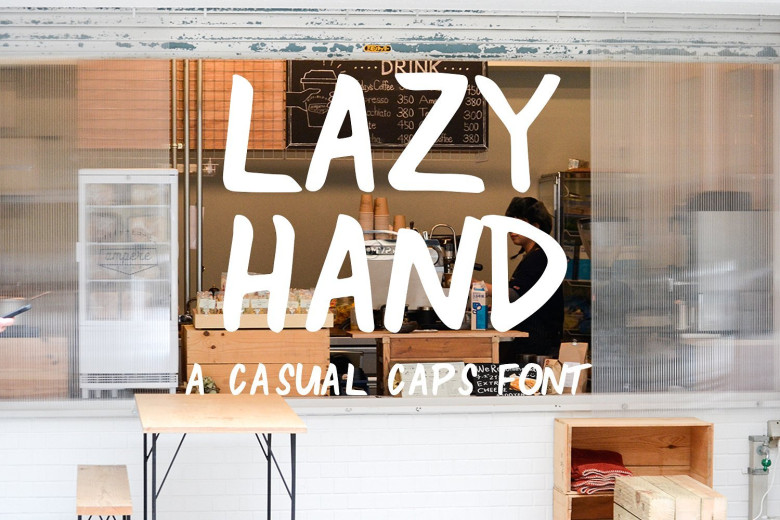
Lazy Hand Font
Introducing Lazy Hand Font! Lazy Hand designed by Jenna Maxfield, this is a premium font, are sold on creativemarket, but it was great, it is free today for download. Lazy Hand is a casual, all caps font with endless possibilities. With a relaxed handwritten style, Lazy Hand makes for a versatile font that can be dressed up or down no matter the project!